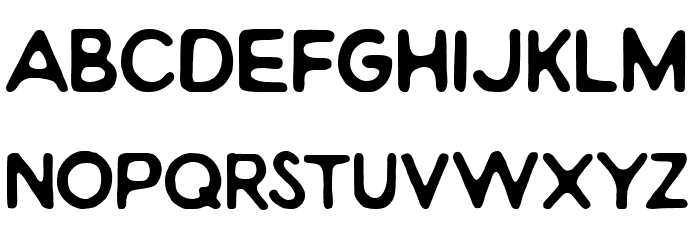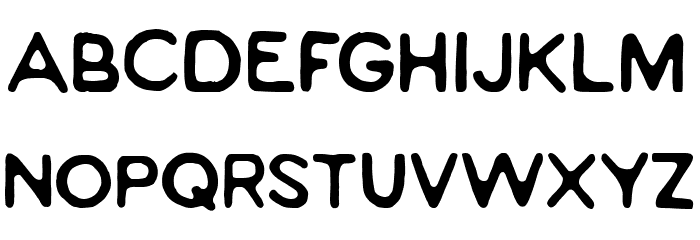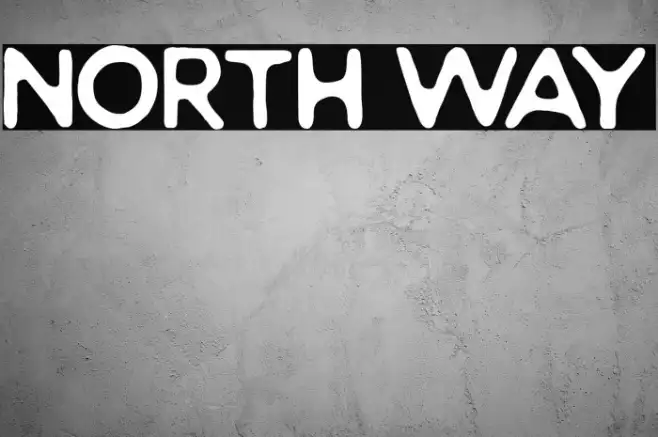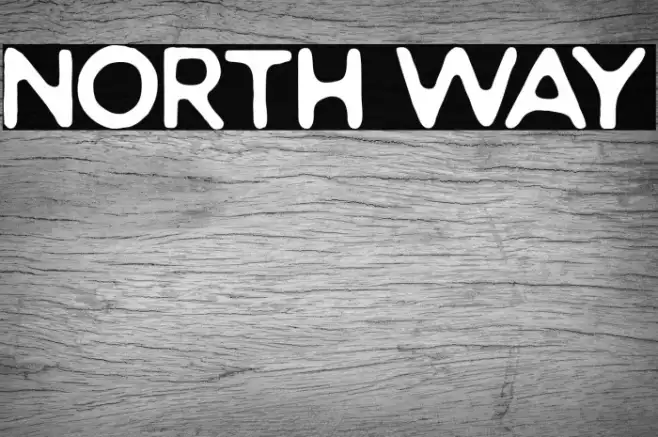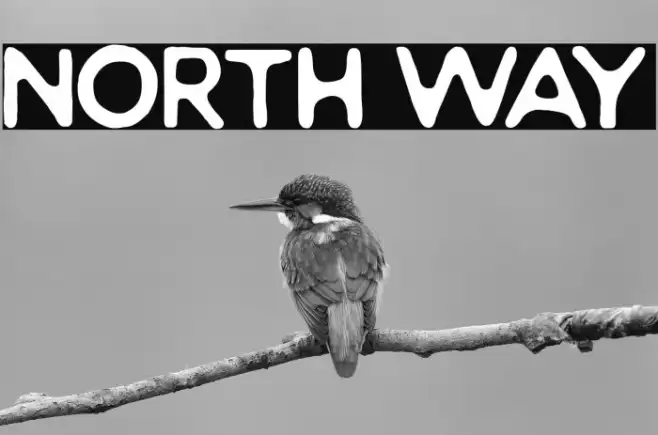
North Way Font
This font features a bold, playful style with rounded edges and a slightly irregular form, giving it a hand-drawn appearance. The letters are uniformly thick, contributing to a consistent and cohesive look across all characters. The uppercase letters are prominent and maintain a uniform height, while the lowercase letters follow suit with a similar thickness and style. The numbers and special characters are crafted to match the overall aesthetic, ensuring a seamless integration into any design. The font's unique character is ideal for projects that require a touch of whimsy and creativity, making it suitable for both digital and print media.
A bold, playful font with rounded edges and a hand-drawn feel.
- Font: North Way
- Proposed Projects: Ideal for children's books, playful branding, posters, and creative digital content.
- Overall Style: Playful, Hand-drawn